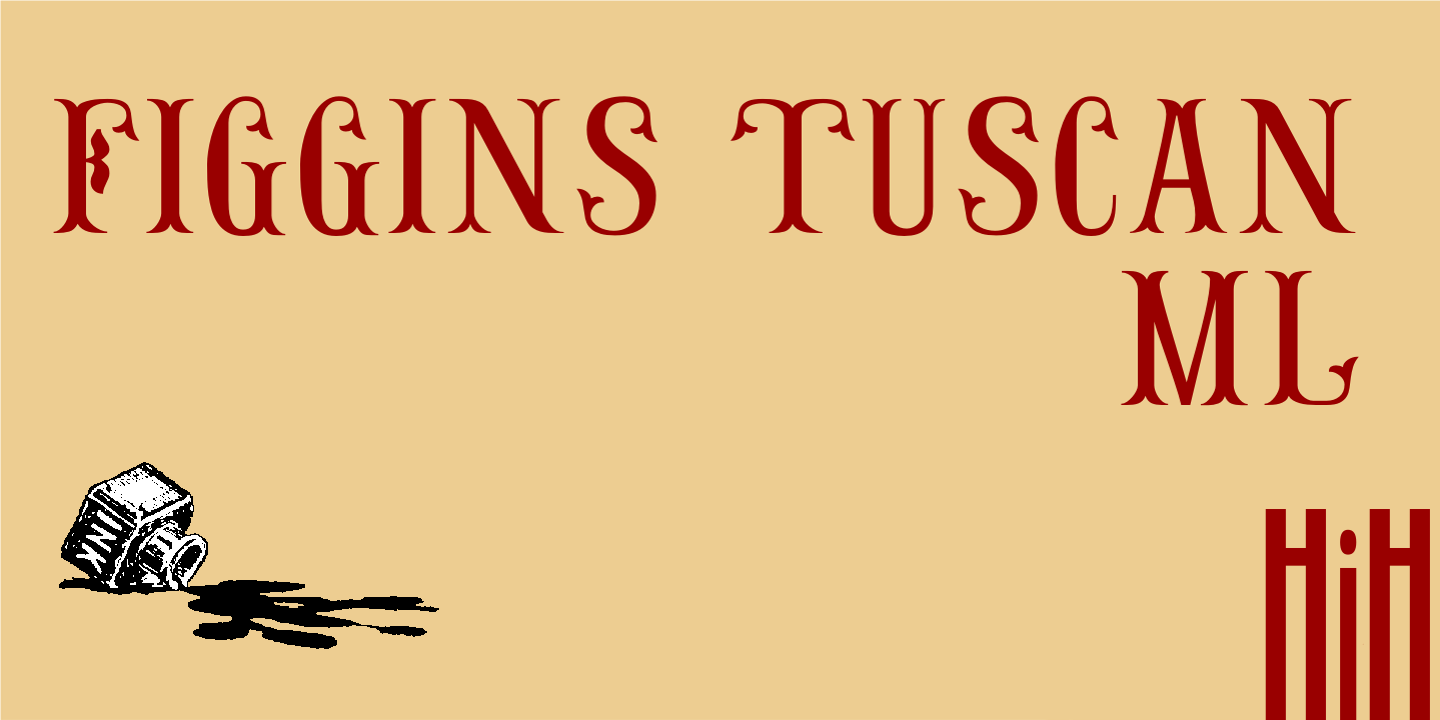
Figgins Tuscan Font excels in vintage posters, historical reproductions, circus designs, theatrical productions, antique branding, Victorian-style projects, decorative signage, and period-accurate design work.
Figgins Tuscan Font is exciting because it authentically recreates the ornate beauty of 19th-century decorative typography, bringing historical craftsmanship and Victorian elegance to modern design projects. This font delivers timeless sophistication with its intricate details and classical proportions.
Figgins Tuscan Font family includes regular, bold, condensed, and ornamental variations, plus decorative borders and period-appropriate flourishes, offering complete historical authenticity for vintage design applications.
Step back in time with Figgins Tuscan Font Free Download. This magnificent typeface captures the ornate splendor of Victorian-era typography, featuring elaborate decorative elements and classical proportions that defined 19th-century design excellence. Perfect for designers creating period-accurate projects, this font delivers authentic historical character with meticulous attention to typographic detail.
The intricately crafted letterforms showcase the masterful artistry of traditional type design, with decorative serifs and ornamental flourishes that reflect the craftsmanship of bygone eras. Each character demonstrates historical accuracy while maintaining excellent legibility for contemporary applications.
Whether you're designing vintage advertisements, historical exhibitions, or theatrical productions, Figgins Tuscan Font provides the authentic period character your projects require. This exceptional typeface bridges past and present, allowing modern designers to access the rich typographic heritage of the Victorian era while meeting today's professional standards and creative demands.